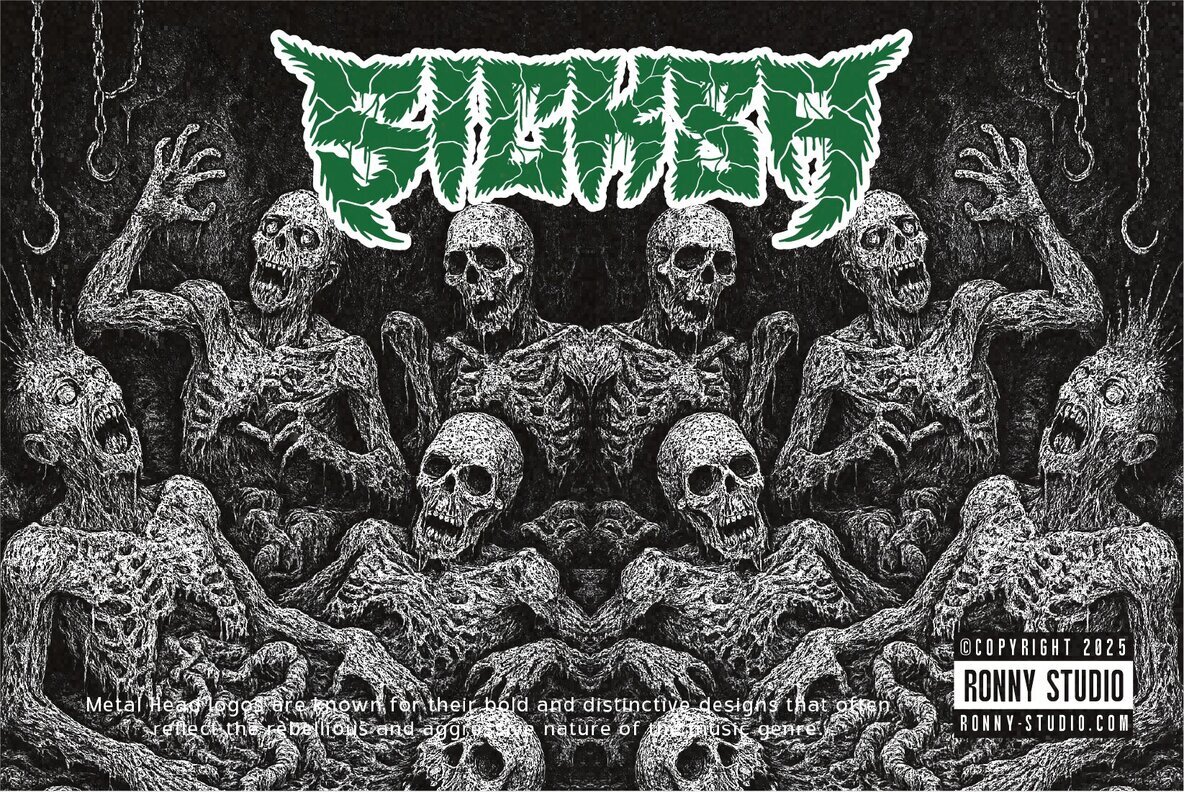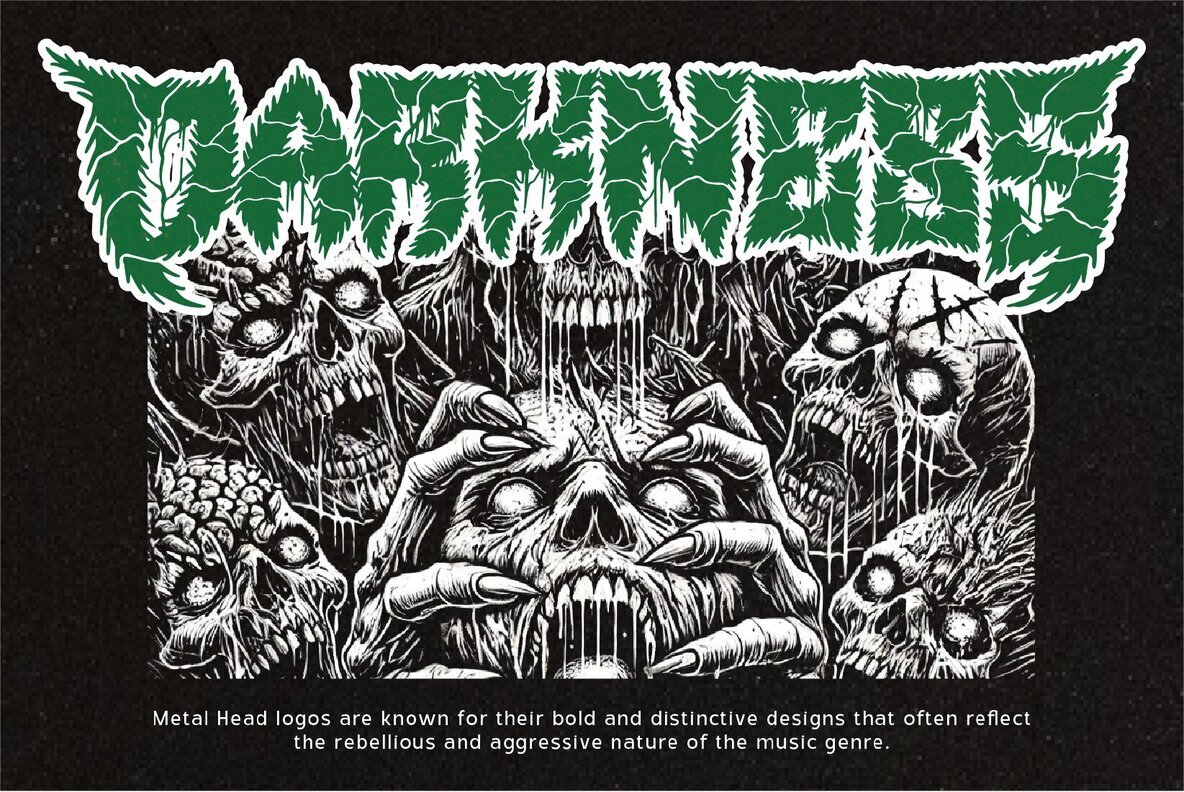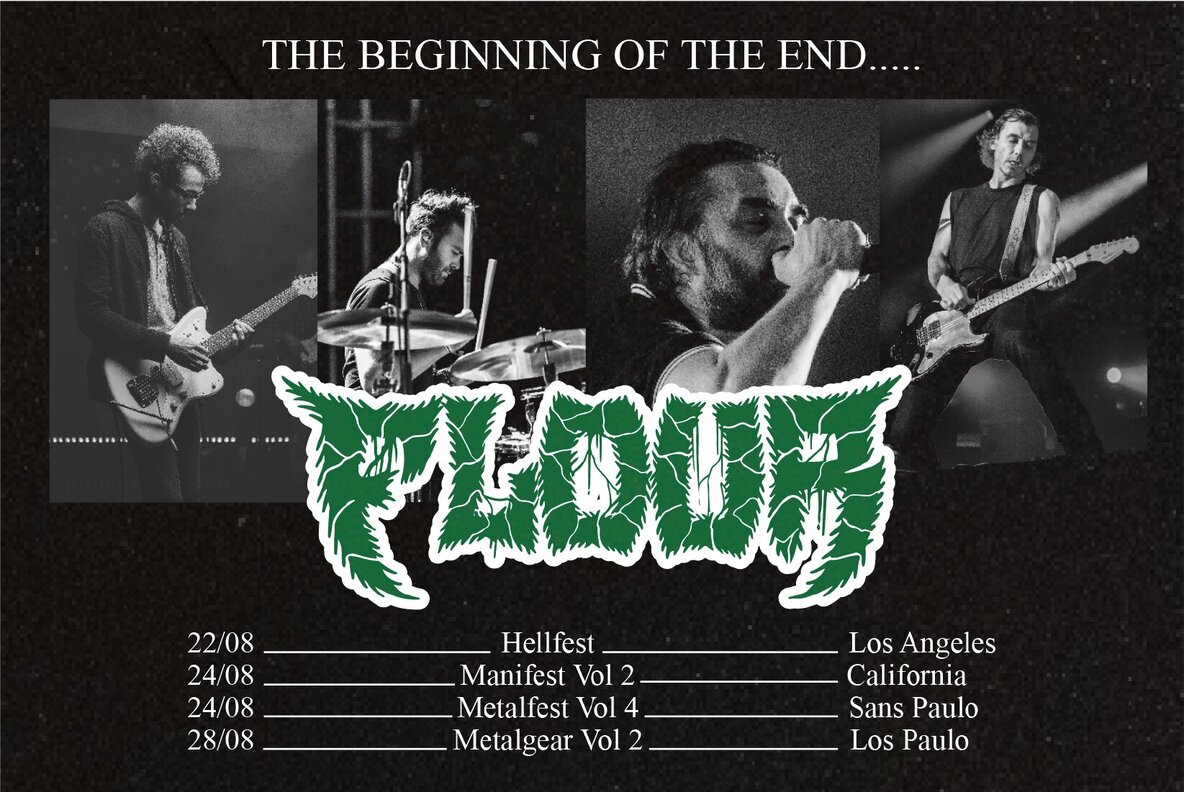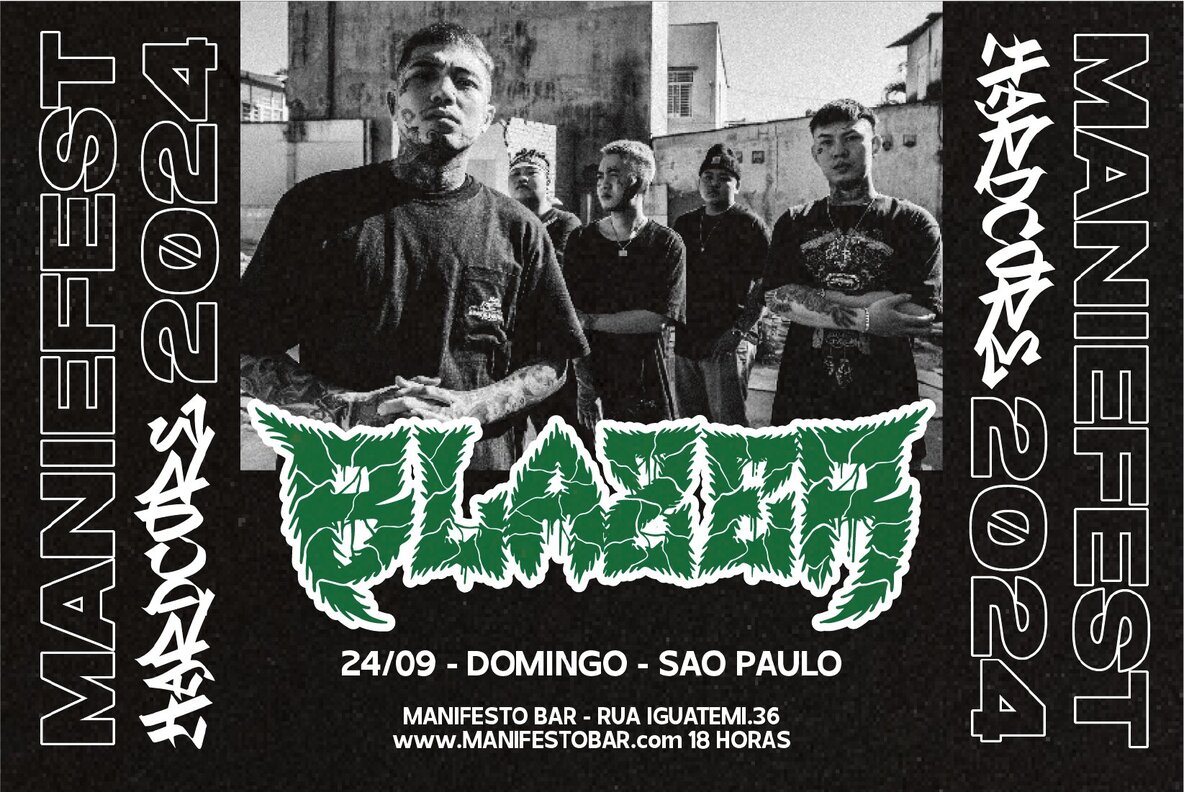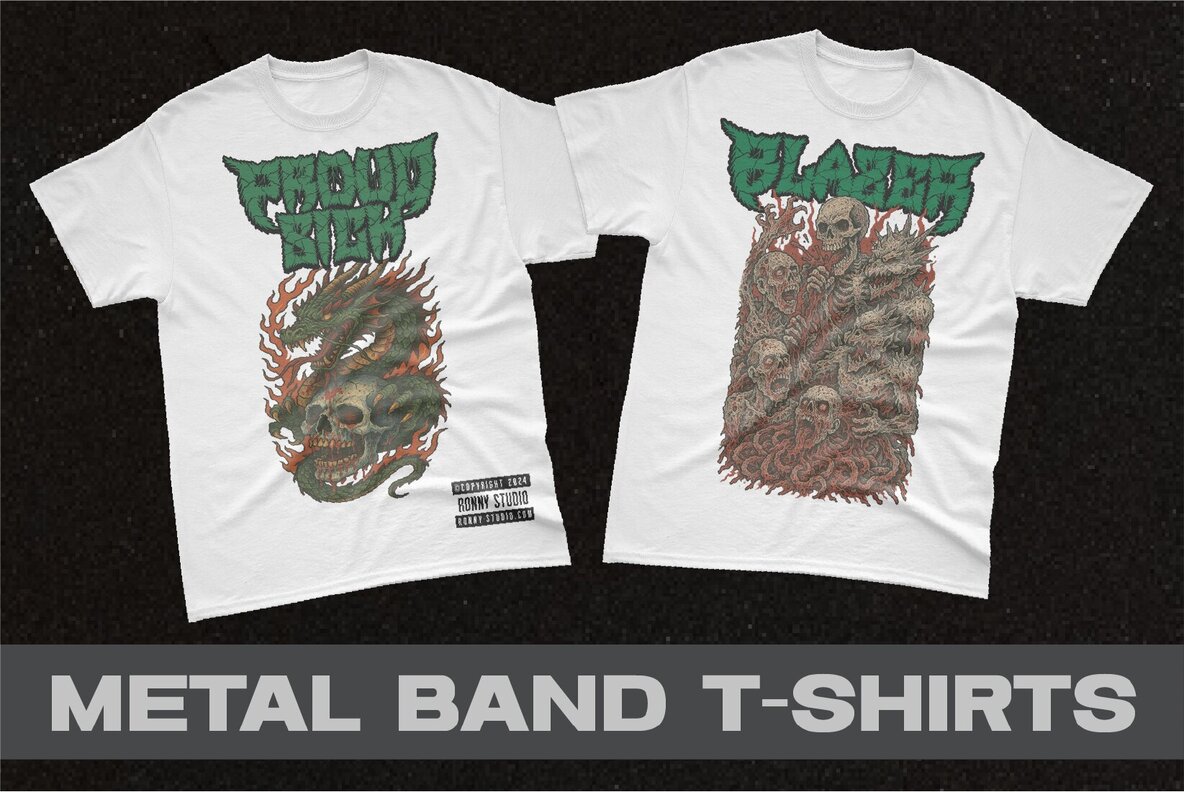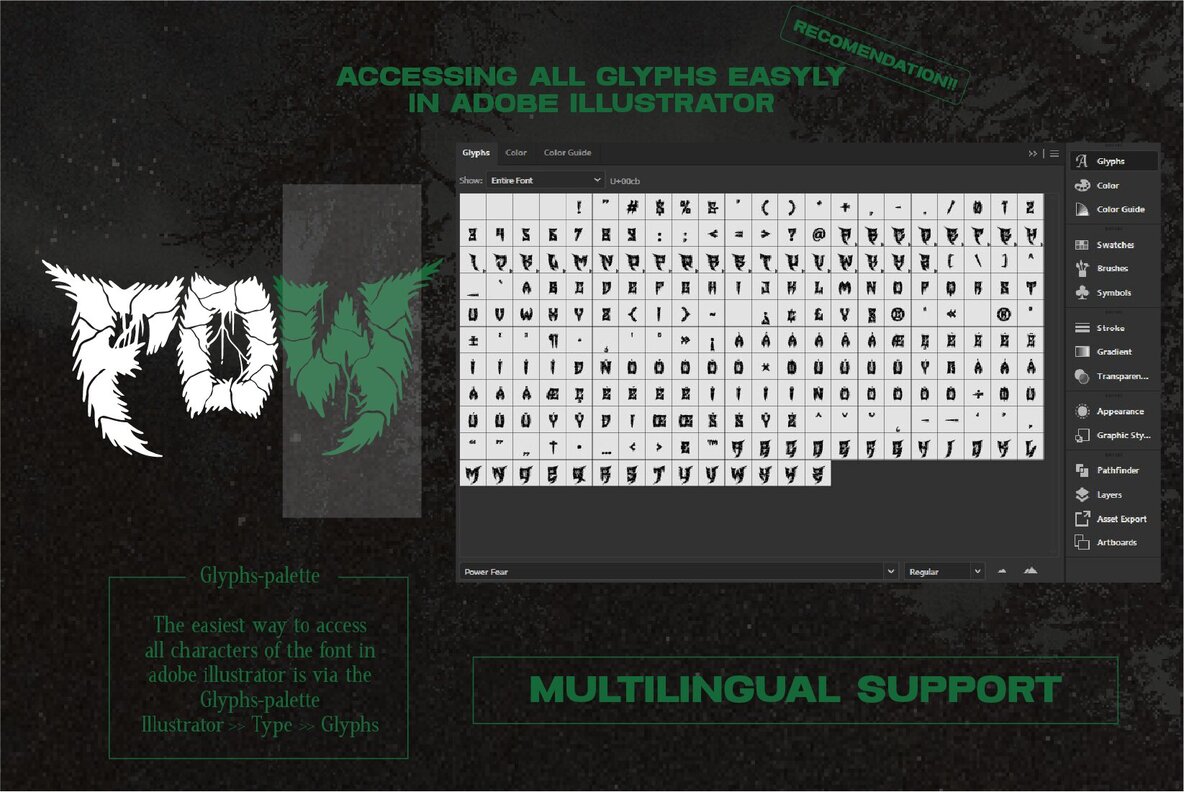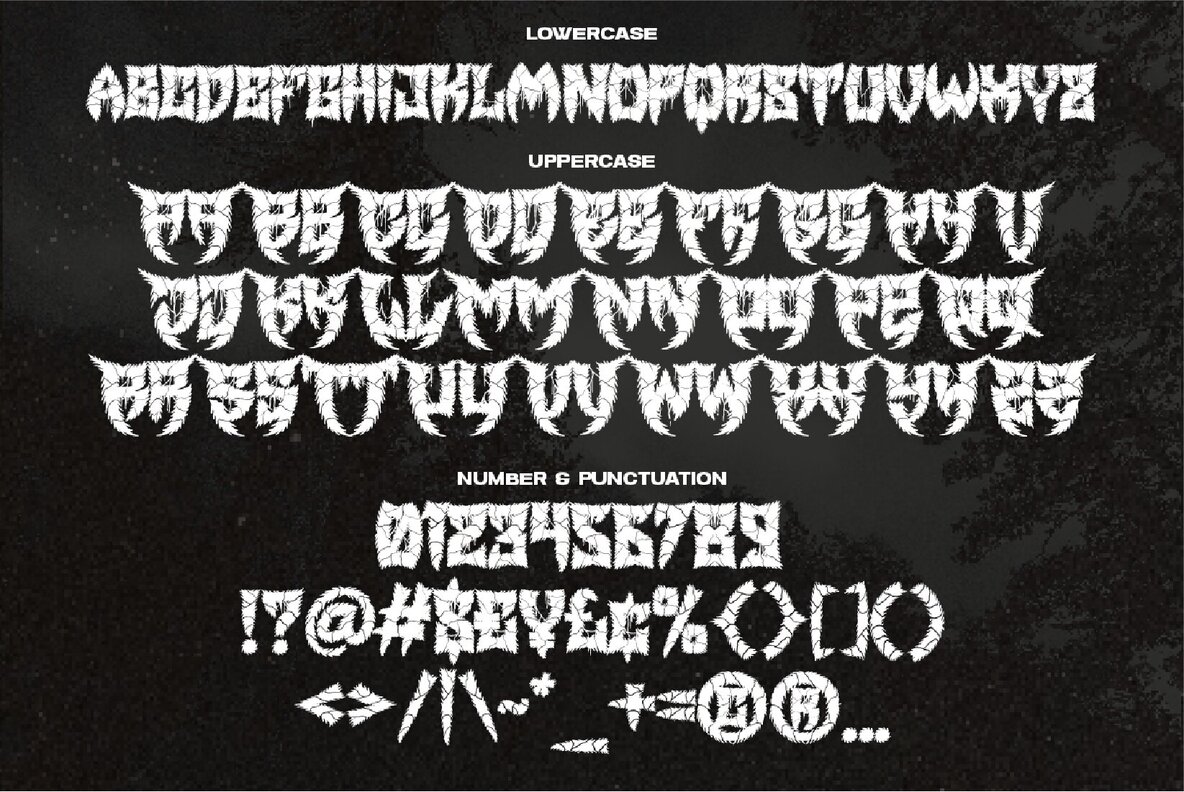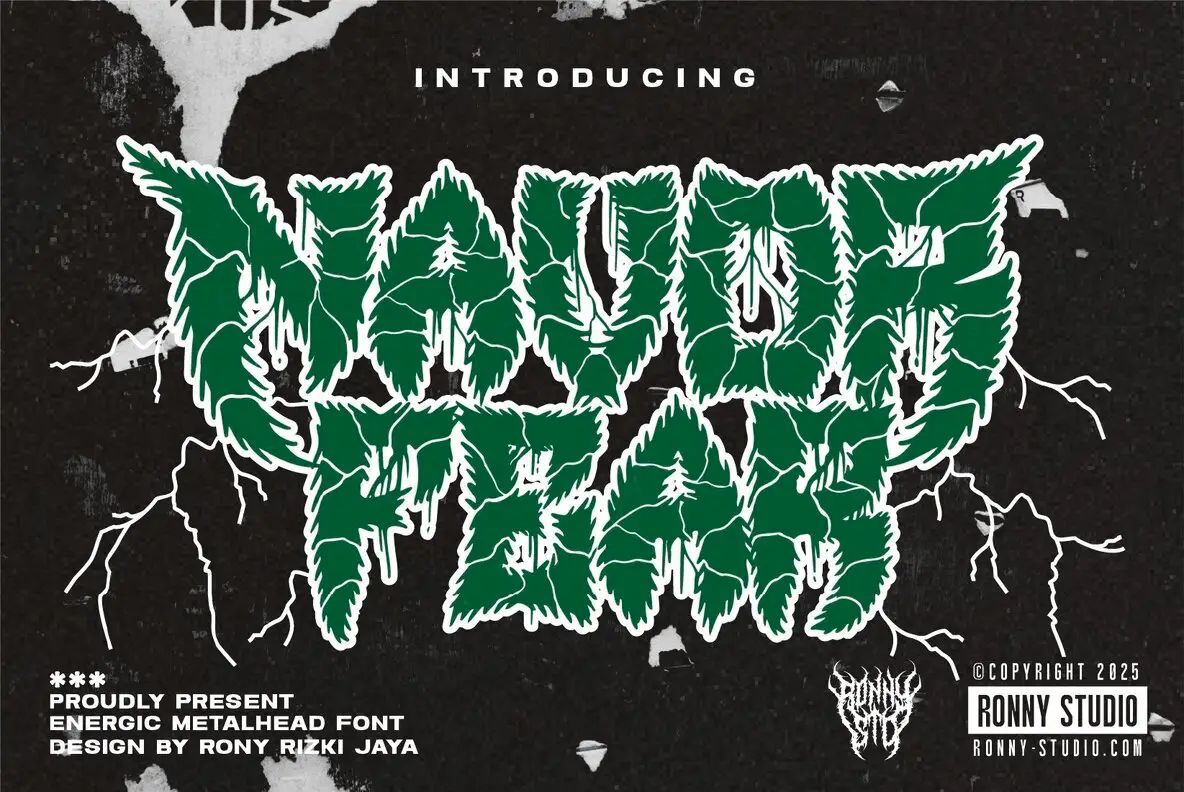
Navor Fear Font
Navor Fear
Navor Fear is designed to harness the raw power of chaos through its electrifying composition. Evoking the vigorous spirit of death metal and hardcore energy, this metalhead font is crafted for those who desire bold, rebellious design. Its aggressive lettering is an ideal choice for projects that seek intensity and a cutting-edge appeal. Features:Ferocious Typography: Navor Fear Metalhead Font